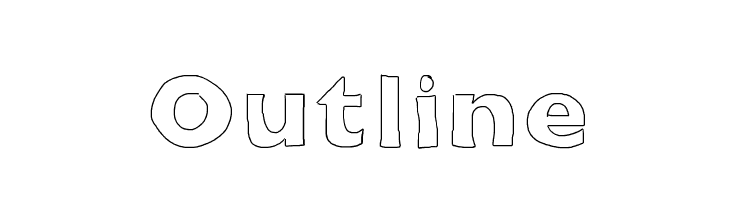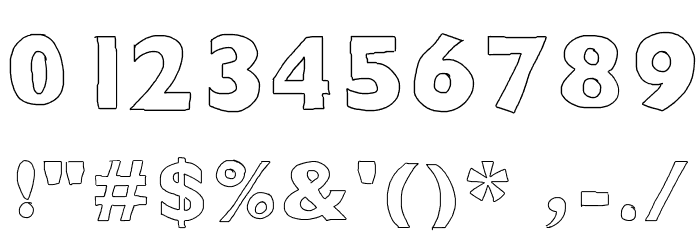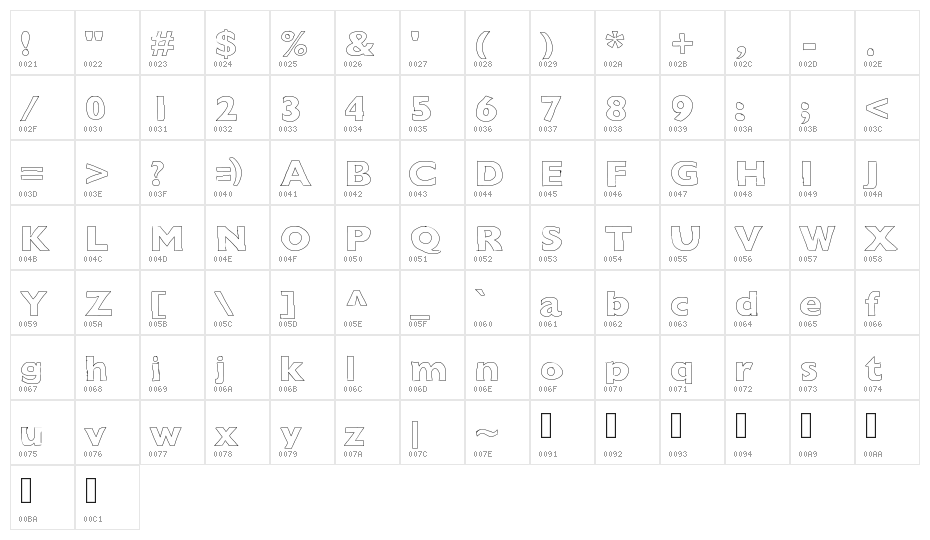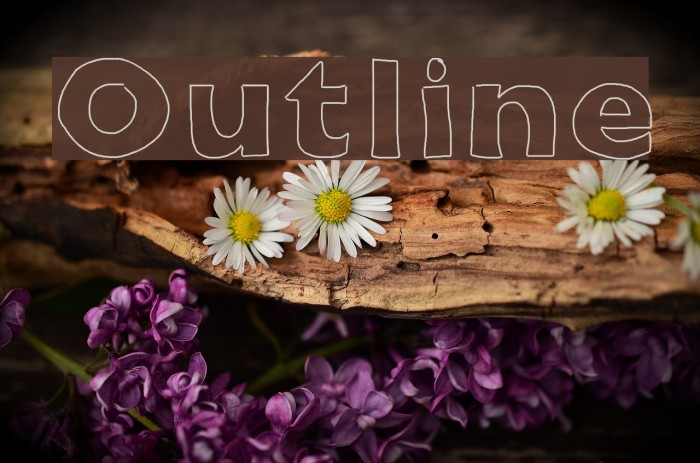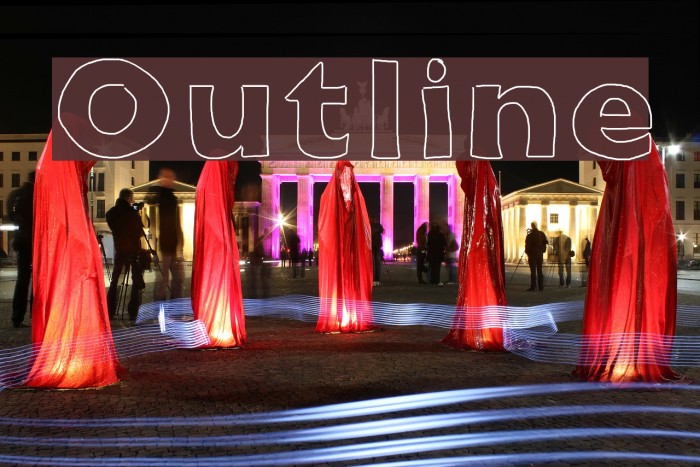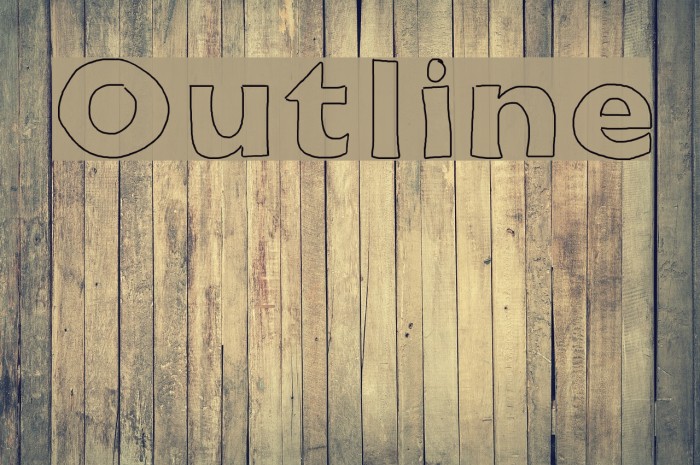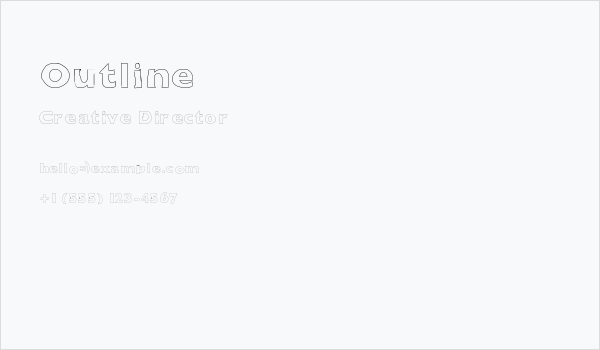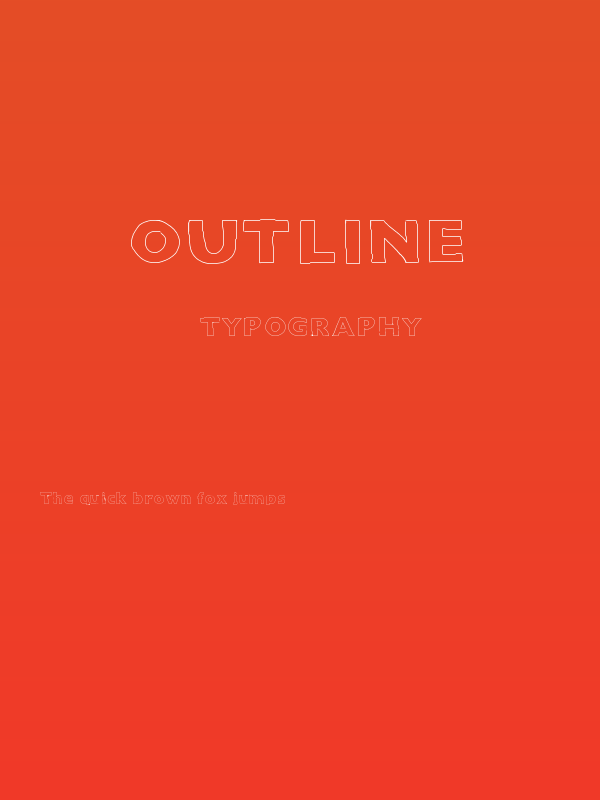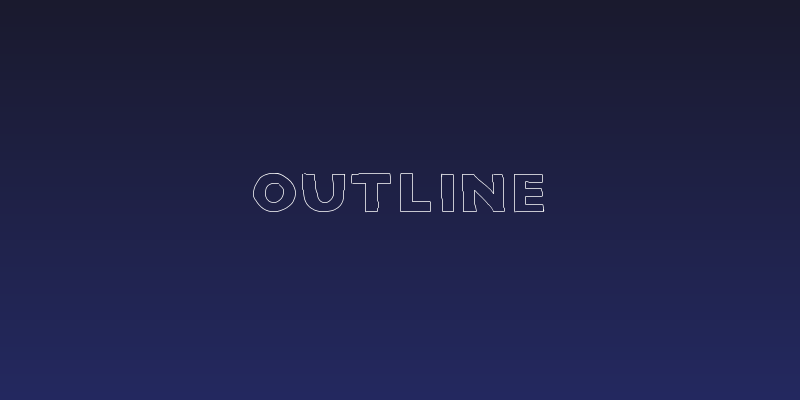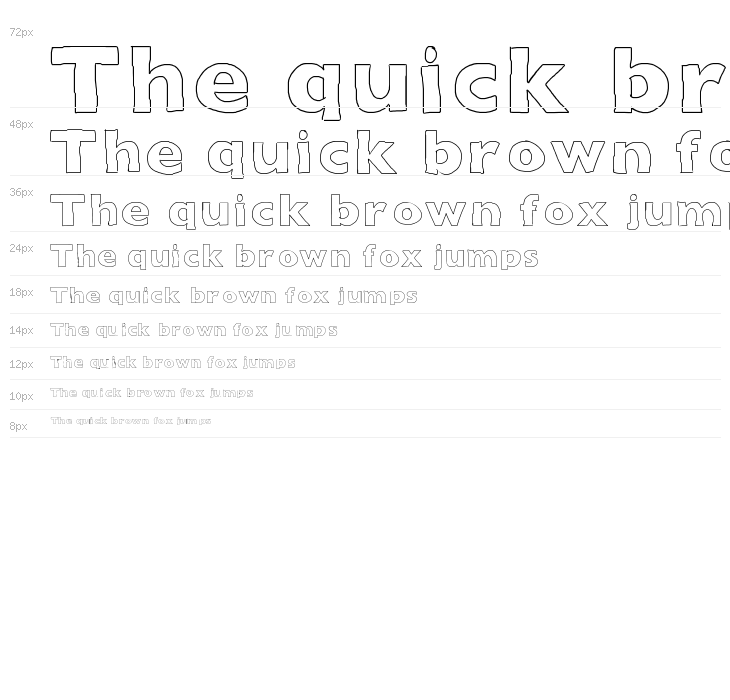
Outline Font
Outline Description
This font features a clean and modern outline style, characterized by its bold and geometric letterforms. Each character is defined by a consistent stroke width, creating a uniform and cohesive appearance. The uppercase and lowercase letters maintain a strong presence, with clear distinctions between each character. Numbers and special characters are designed to match the overall aesthetic, ensuring versatility across various applications. The font's simplicity and clarity make it suitable for both digital and print media, providing a contemporary look that is both functional and stylish.
| Proposed Projects | Ideal for branding, headlines, posters, and digital media where a modern and clean aesthetic is desired. |